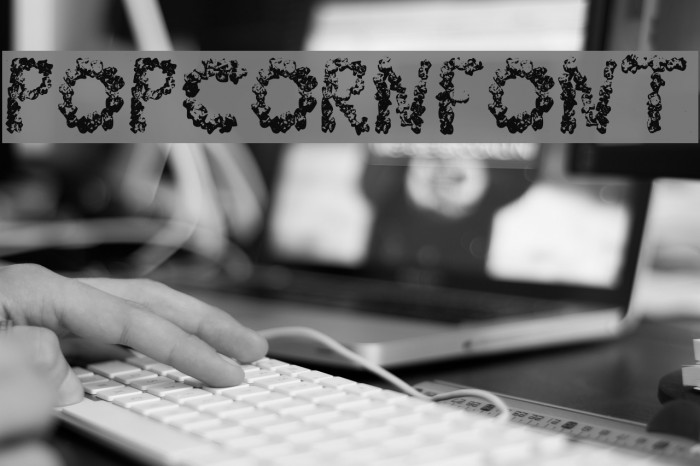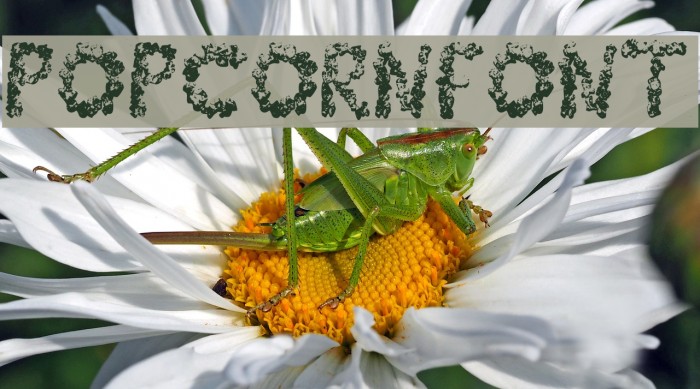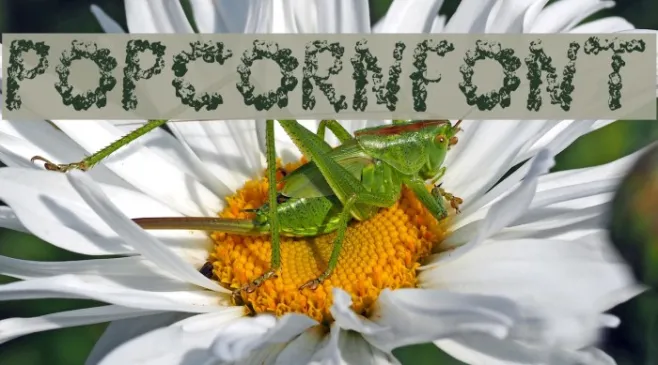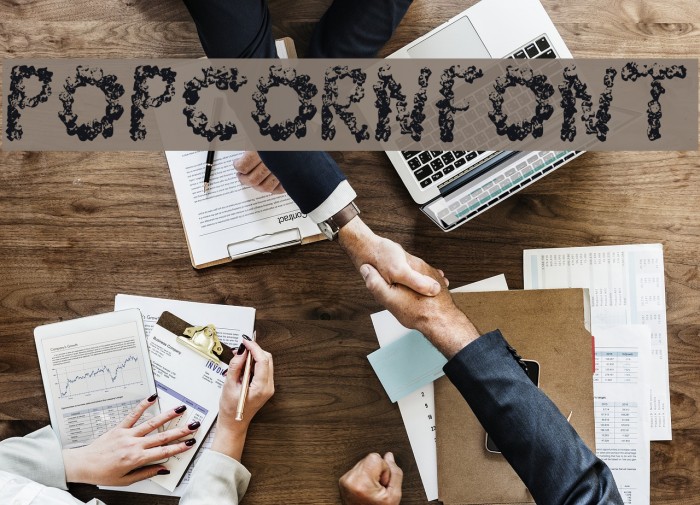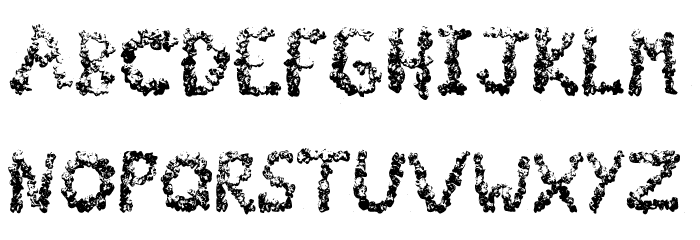
PopCornFont Font
This playful and whimsical font is characterized by its unique texture that resembles clusters of popcorn. Each letter is crafted with a bubbly, uneven surface, giving it a fun and informal appearance. The font maintains a consistent size and shape across all characters, ensuring readability while adding a touch of creativity. Its distinct style makes it stand out, perfect for projects that require a lighthearted and entertaining vibe. The font's design is both eye-catching and memorable, making it ideal for use in contexts where a playful tone is desired.
A playful, textured font resembling popcorn clusters, perfect for fun projects.
• Proposed Projects: Ideal for children's books, party invitations, playful branding, and entertainment-related materials.
• Category: Decorative/Display
• Width: Normal
• Character Spacing: Normal
• Contrast: Low
• Overall Style: Playful
• Use Case: Headlines, Logos, Posters